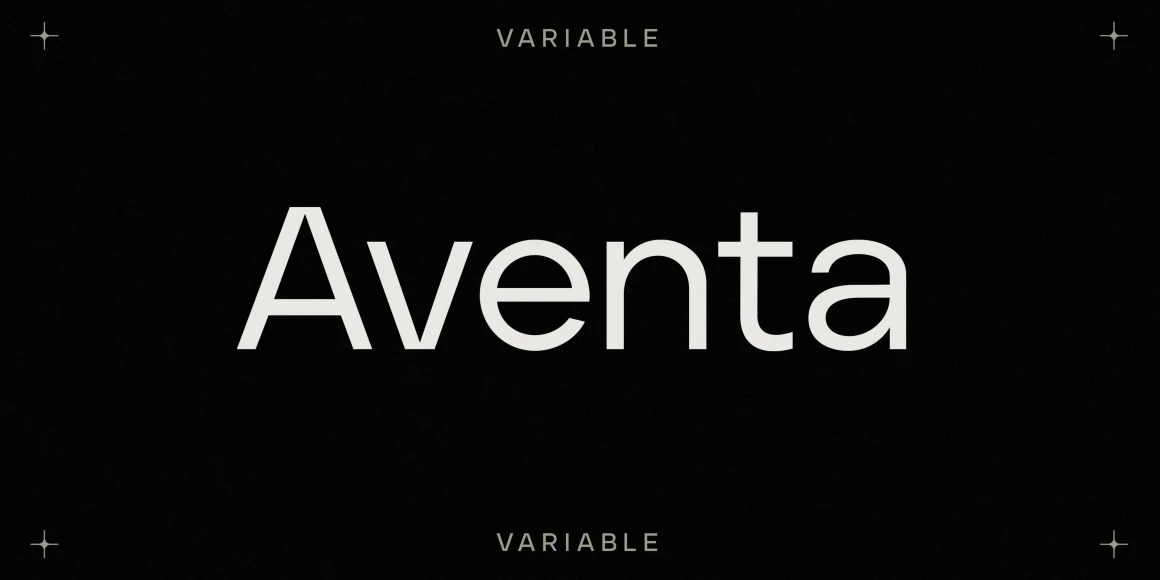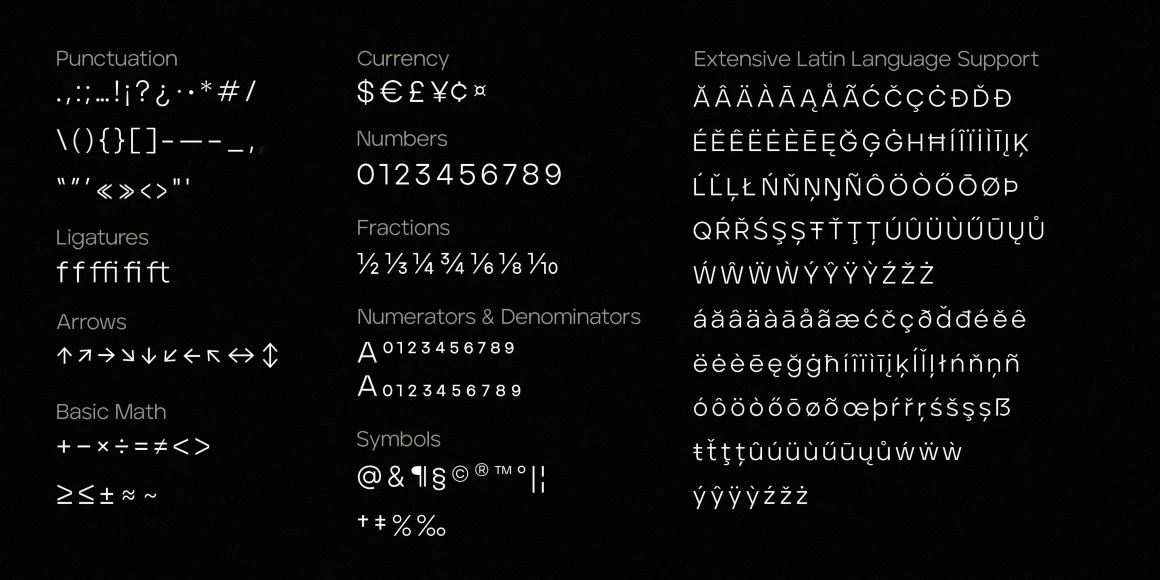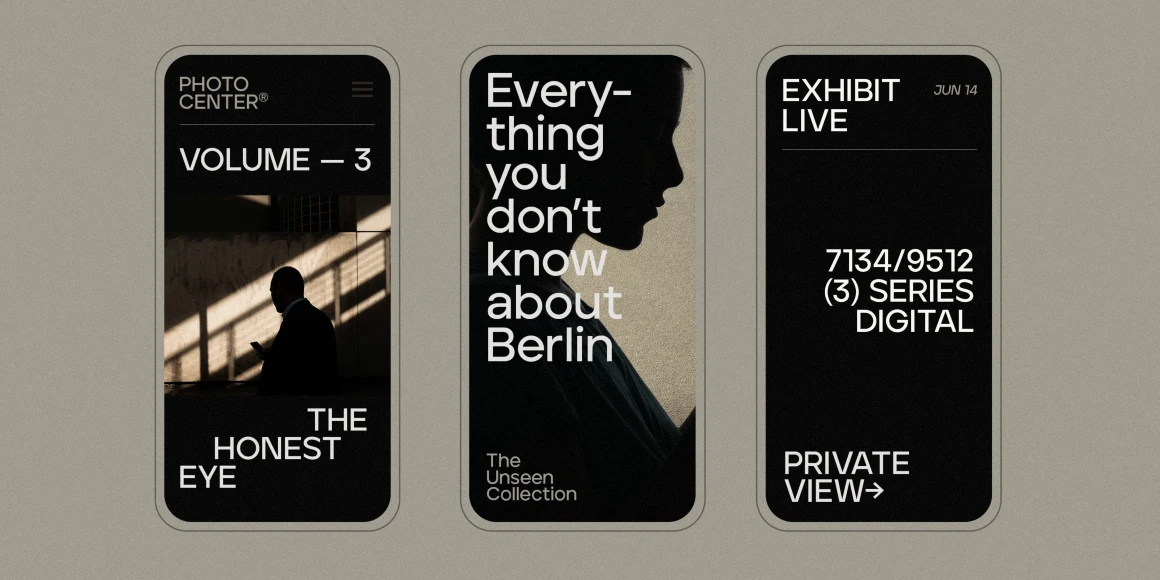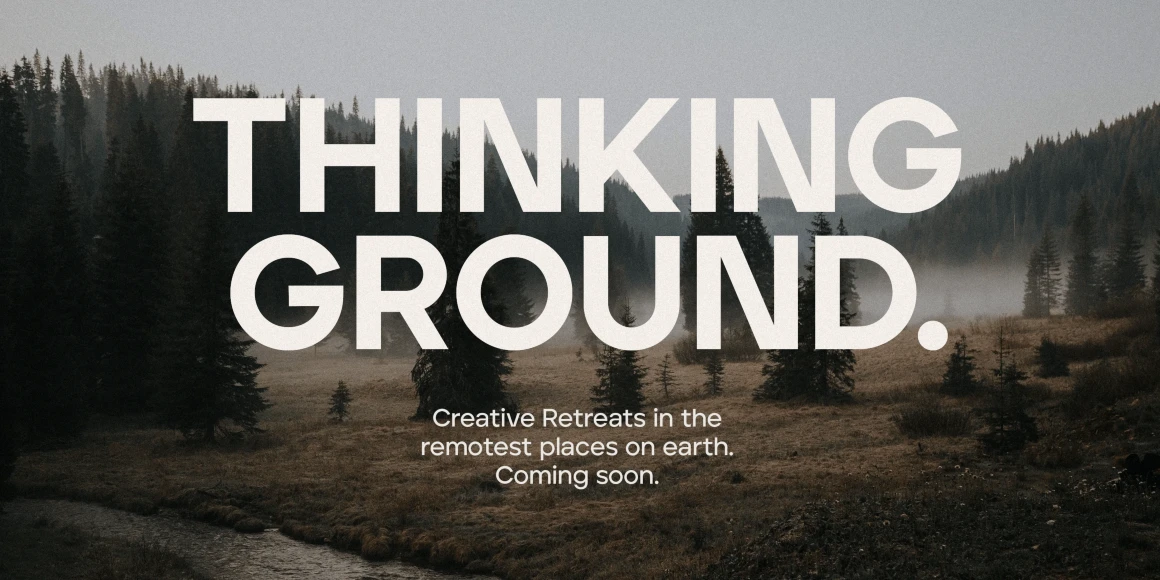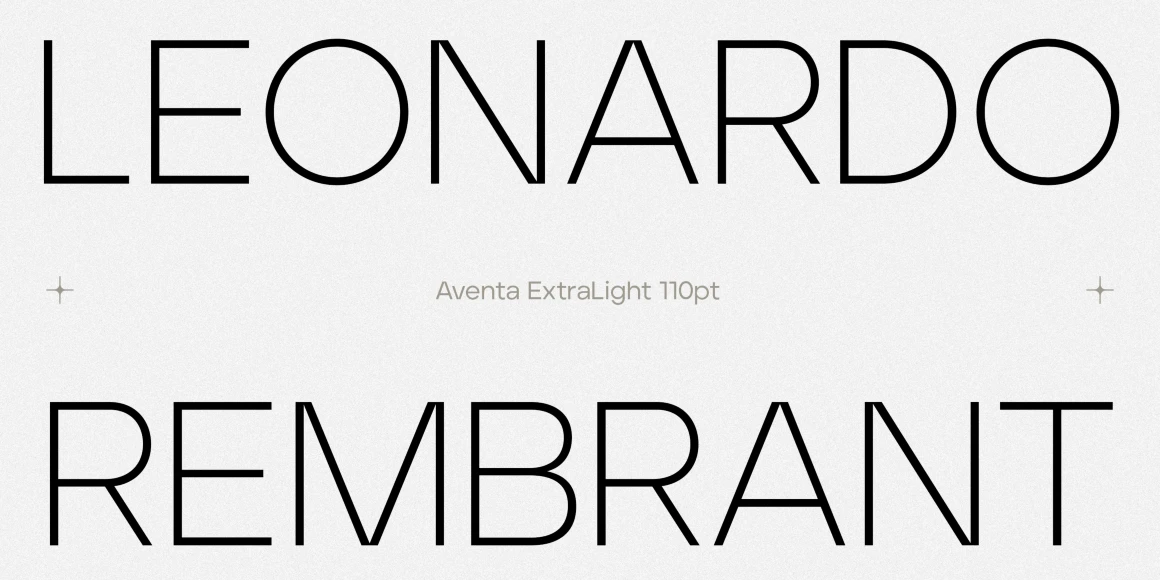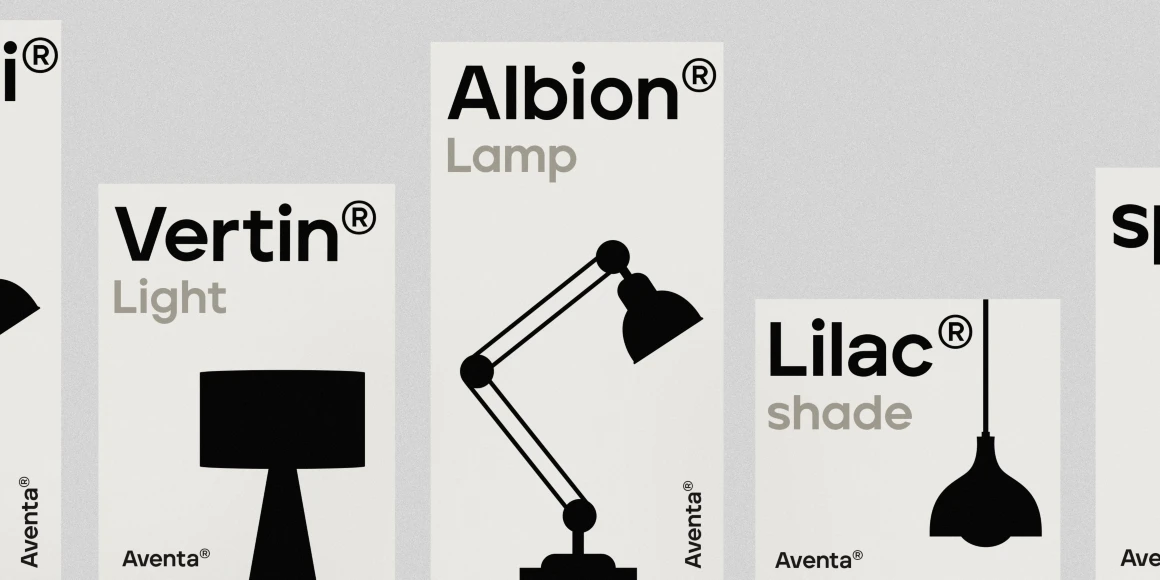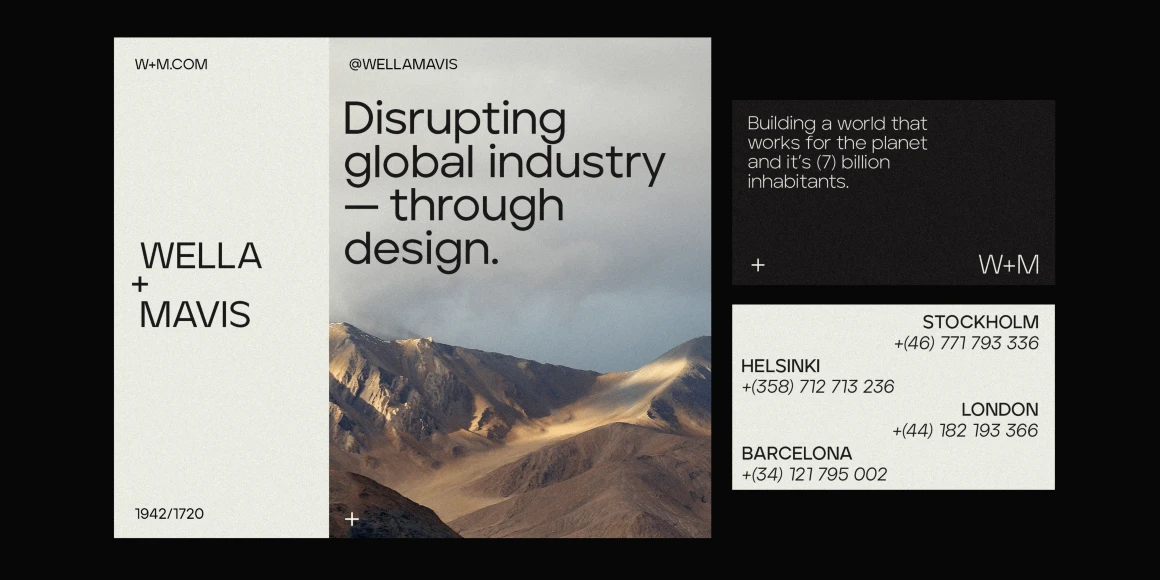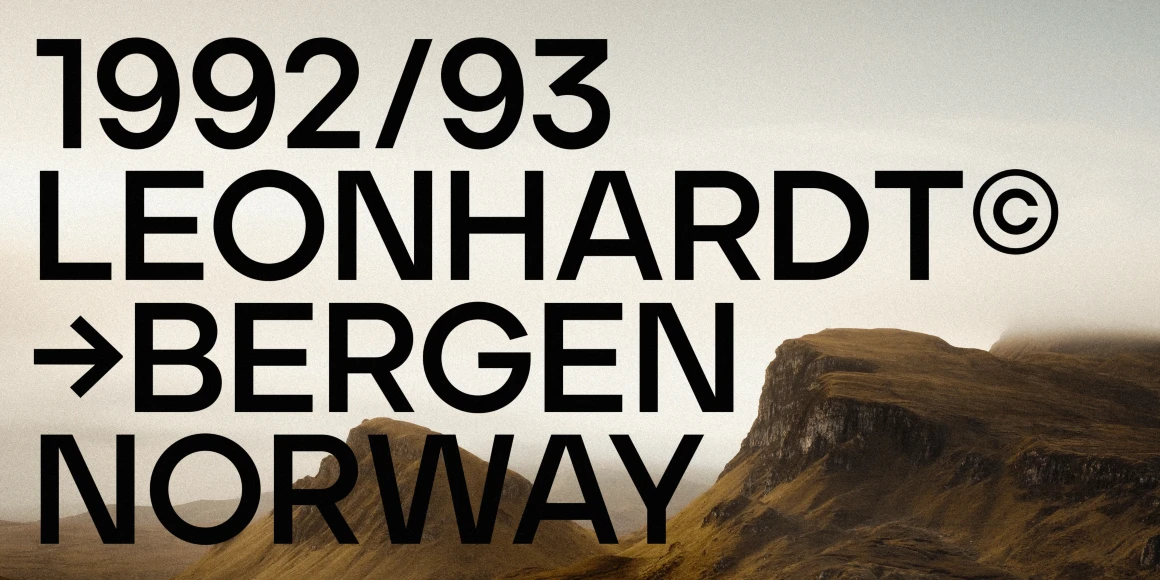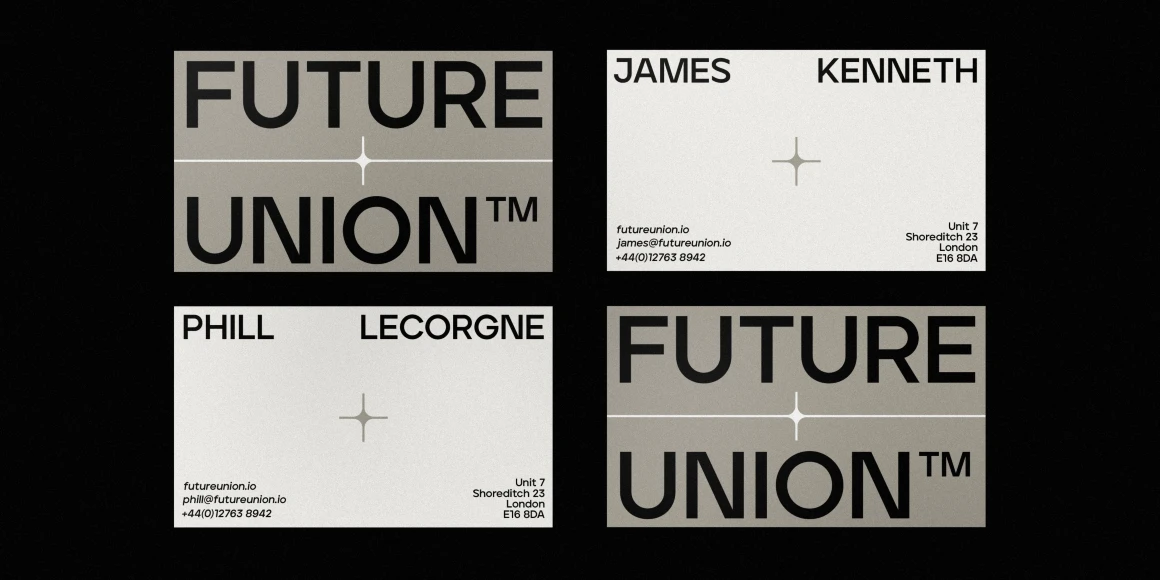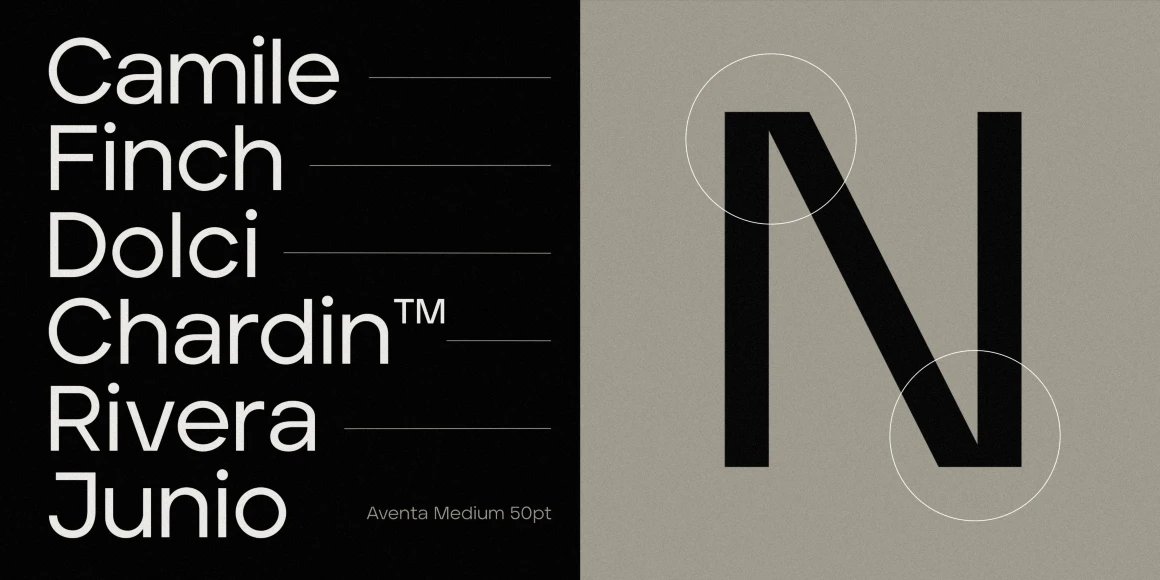
Aventa, from Ellen Luff Type Foundry, is a geometric sans serif with contemporary touches, blending strong elementary shapes with clean circles, modern cuts, and sharp edges. It carries a distinctive yet refined personality, perfect for confidently elegant typography. Aventa’s large x-height and strong capitals ensure excellent legibility across all weights. Designed as a variable font with nine weights and matching italics, it offers versatility for text and display use in magazines, books, and interfaces, making it a stylish and reliable workhorse for creative projects.